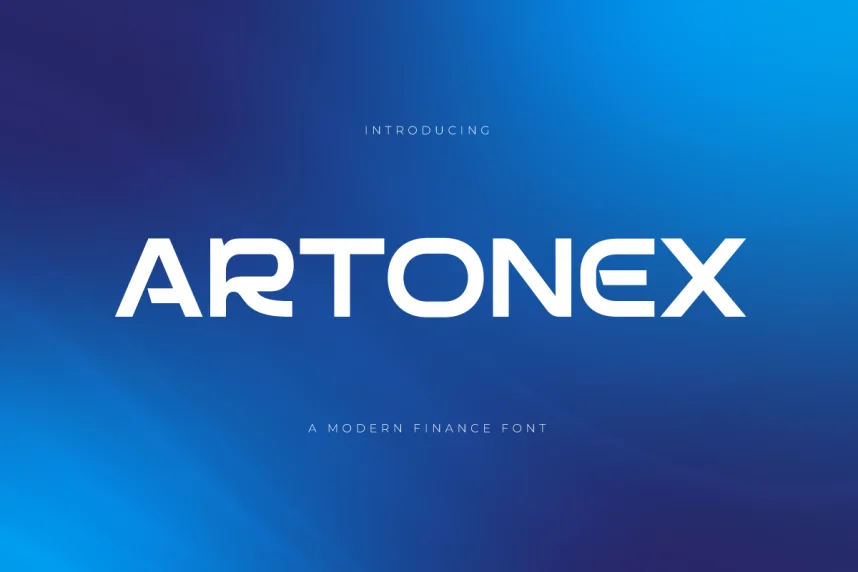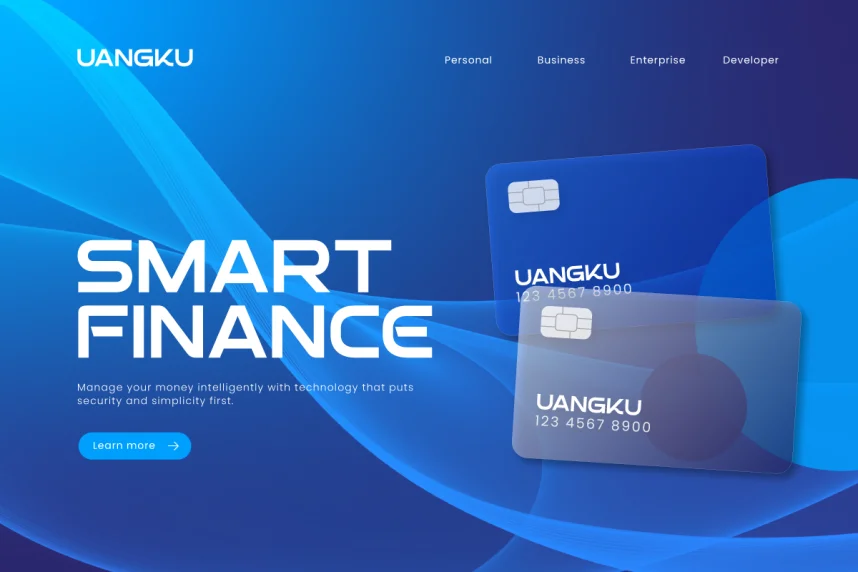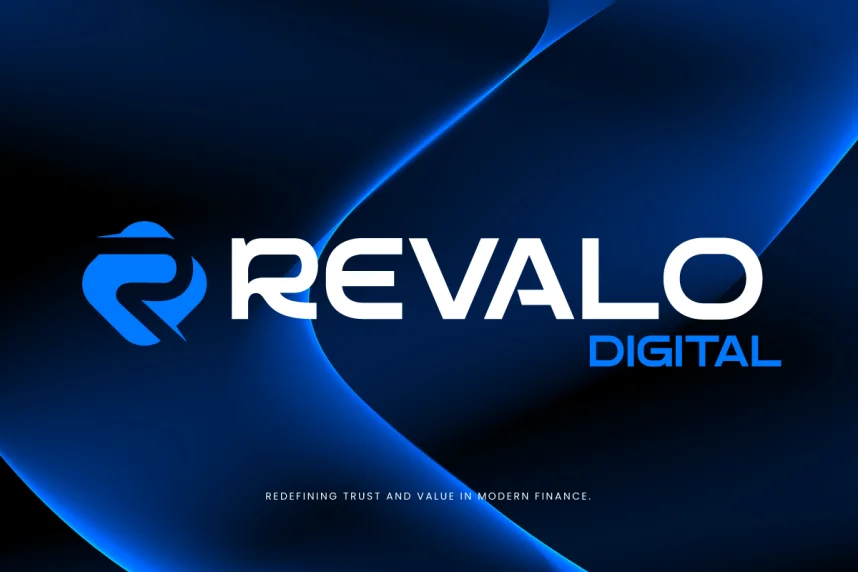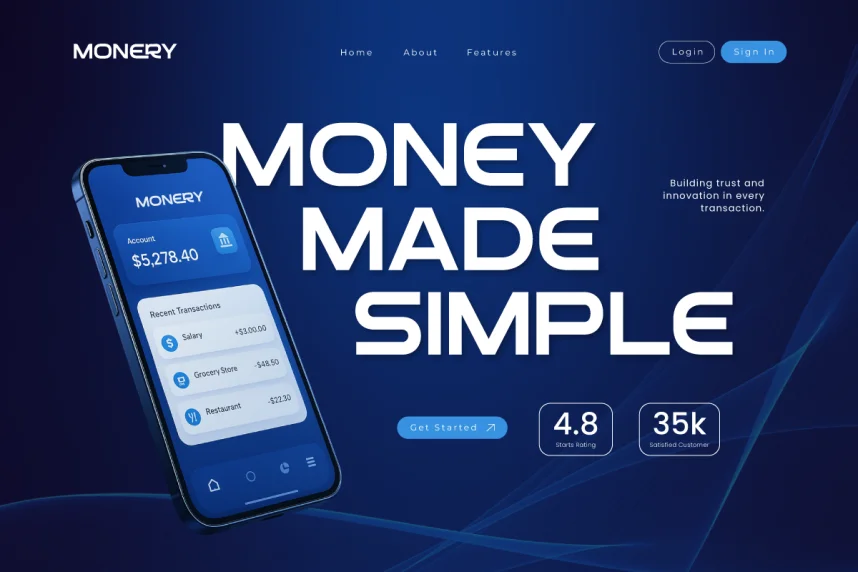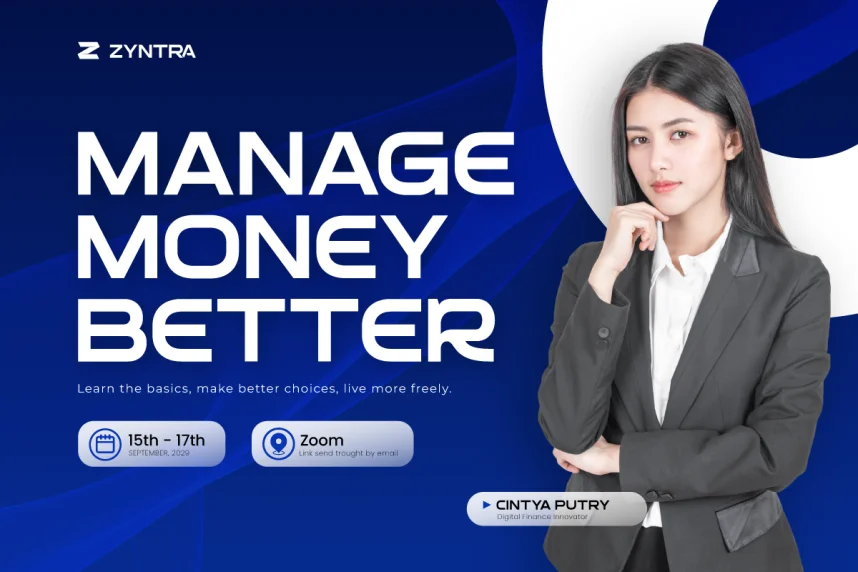
Artonex Font is a sans-serif typeface designed for fintech and corporate digital projects. Its structured forms improve clarity, consistency, and professional appearance across branding and UI design.
The font features minimalistic letterforms, geometric shapes, and uniform stroke widths. Multiple weights and alternates make it suitable for web headers, dashboards, marketing materials, and logo design, balancing modern aesthetics with technical precision.